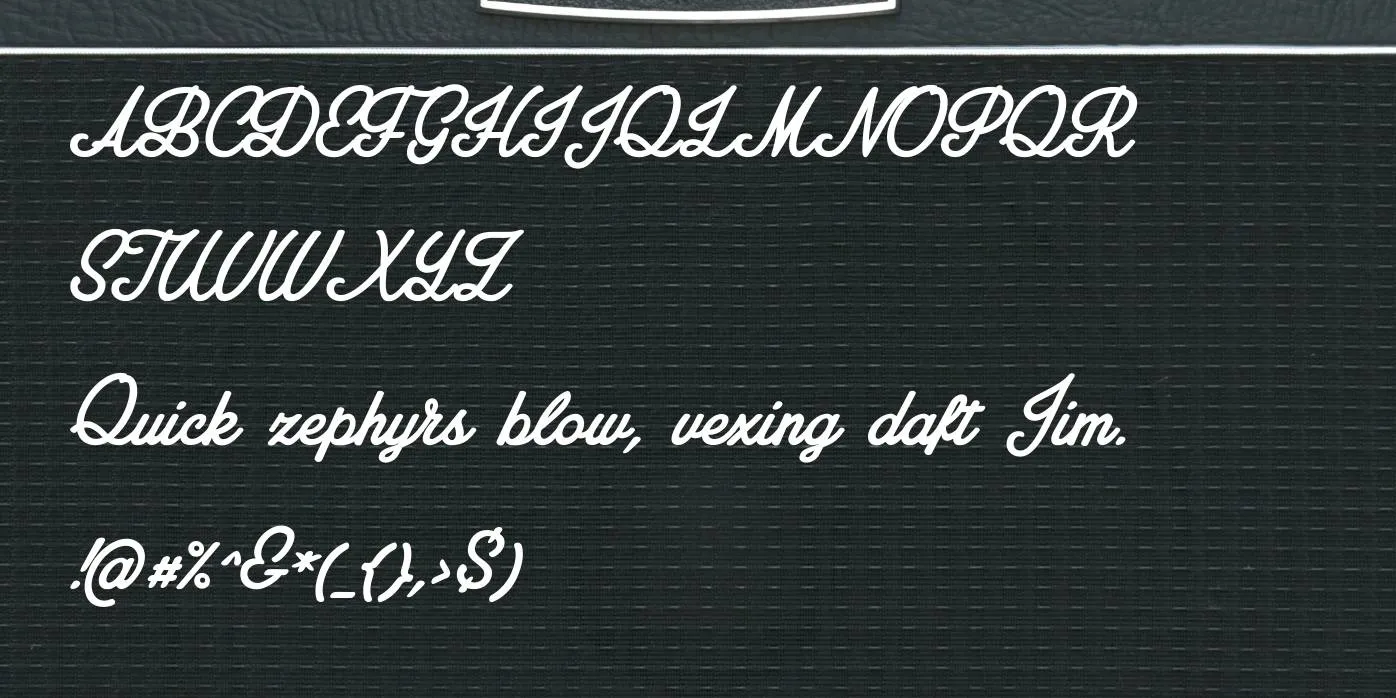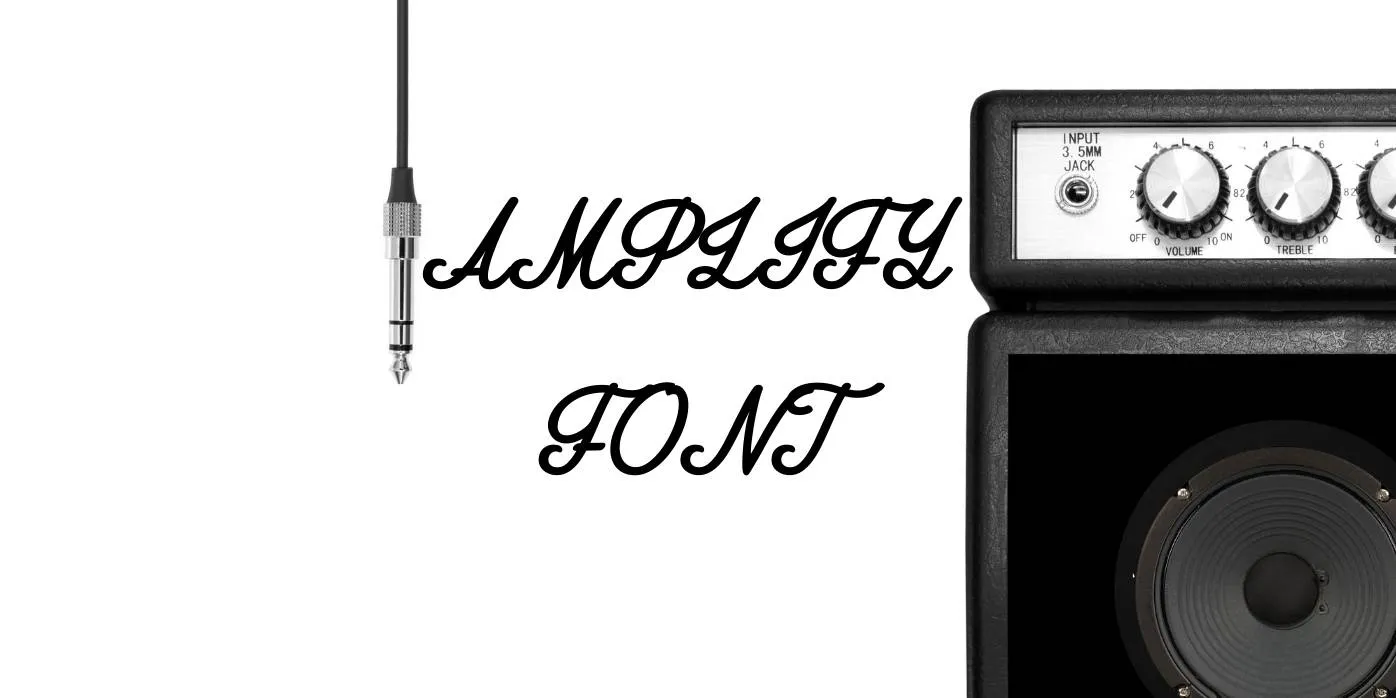
Amplify Font
Presenting you a very beautiful handwriting style font that is Amplify font. The designer of this curvy and elegant font is Mans Greback. The Font belongs to a Script Typeface family font. It has many usage and feature and is available on our website.
It has many downloaders because of its splendid look and excellent features. The font also has the ability to support many languages and accents for international users. It also has a regular style but it has many functions includes Uppercase and Lowercase letters. The font family is free for personal use only.
It has very beautiful characters includes Uppercase and lowercase letters, Symbols, Special Characters, and elegant Alternates as well. The Amplify font only has TrueType Feature but it is very suitable for pretty cool design projects.